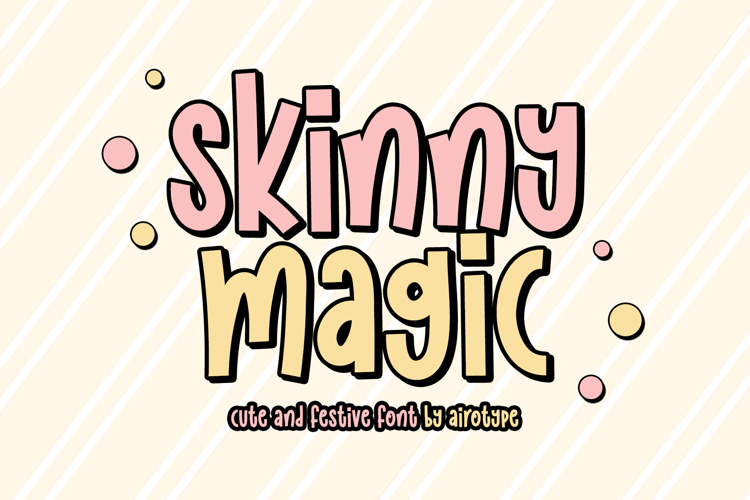
Skinny Magic is cute and bouncy font. It has playful and whimsical vibes, to bring cheerful color into the design.
Skinny Magic is perfect for design with fun and cute touch, such as school design, birthday invitation, summer design, holiday, t-shirt design, crafting, sticker, sublimation, and many more.
- Numeral and Punctuation
- Most Multilingual Accent